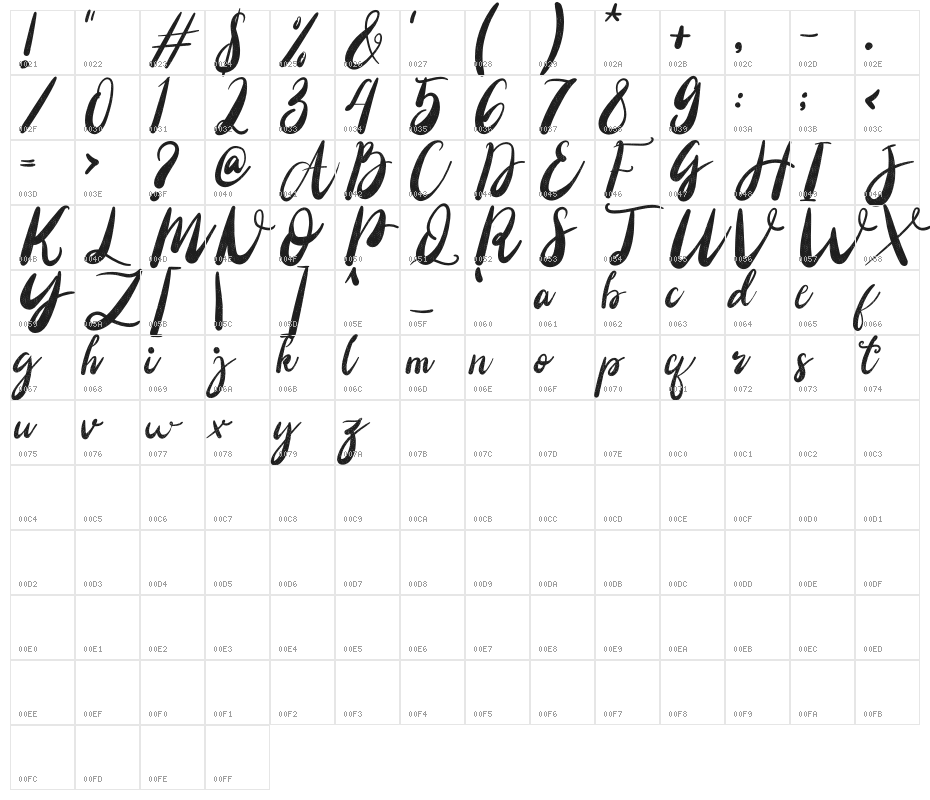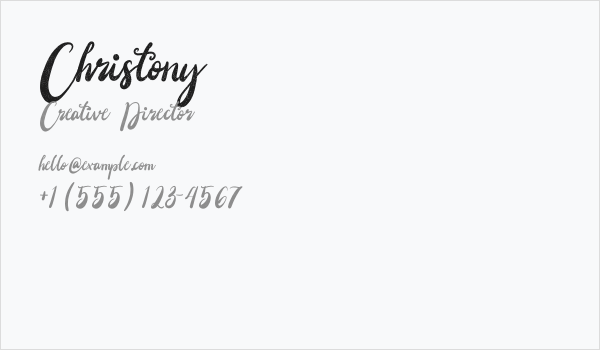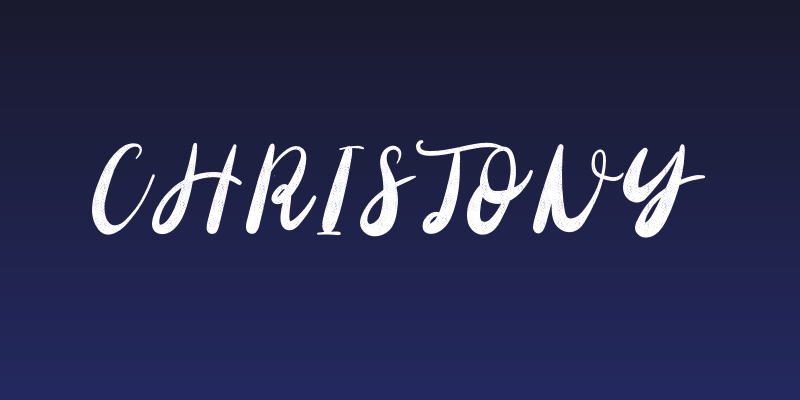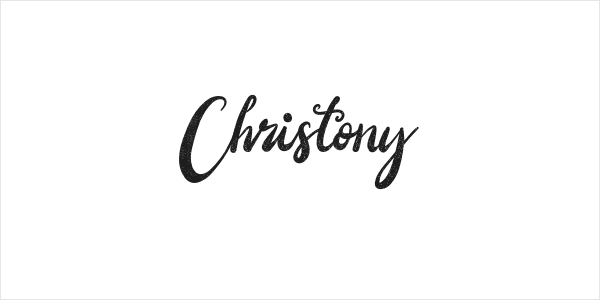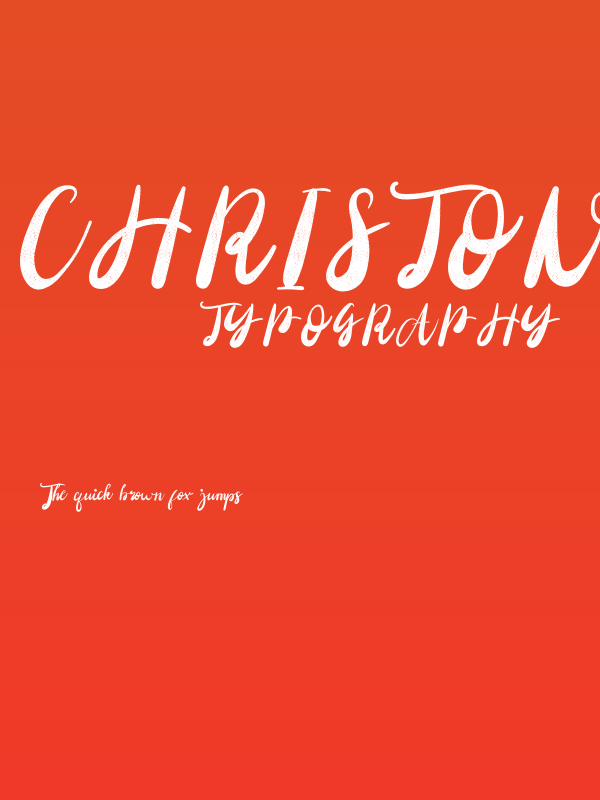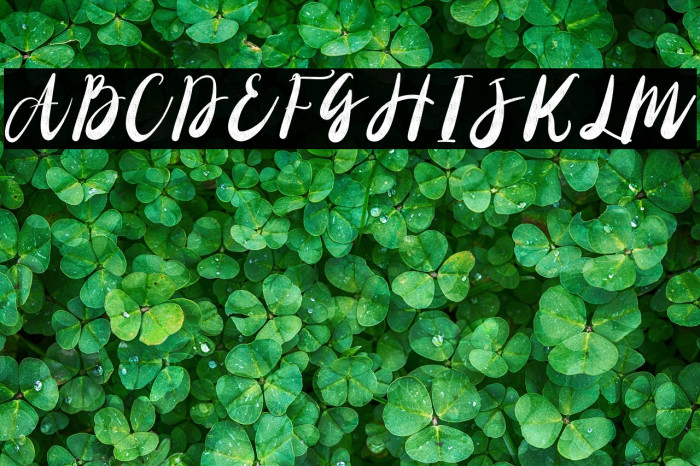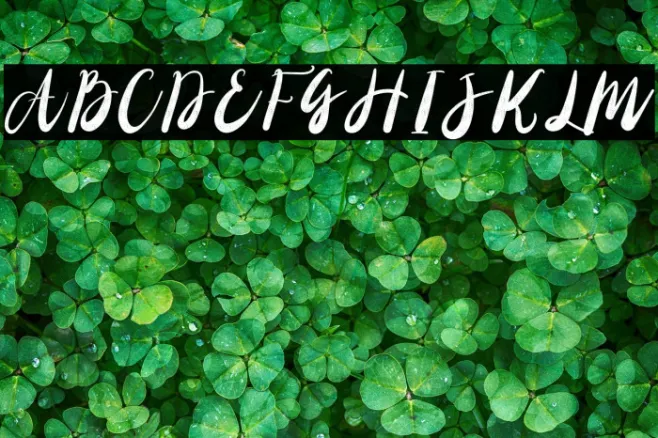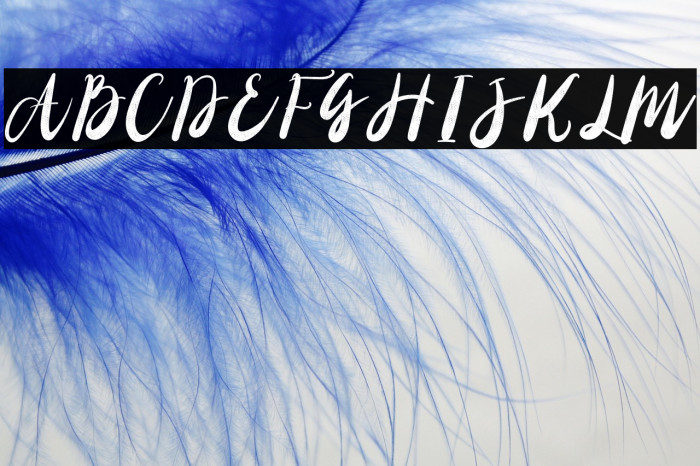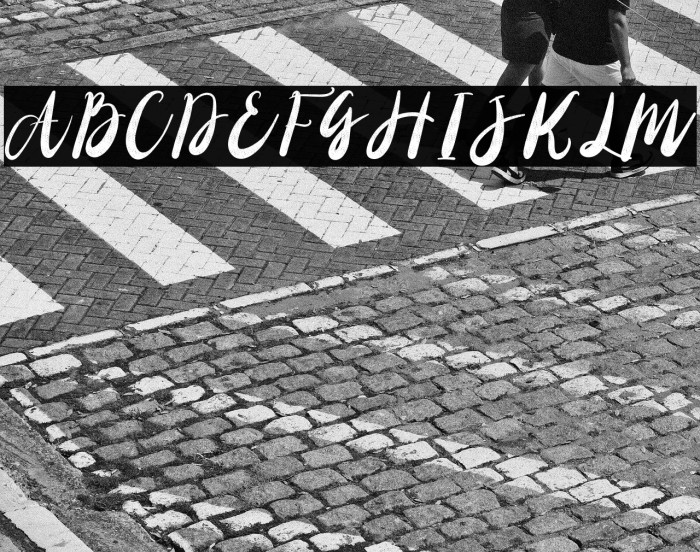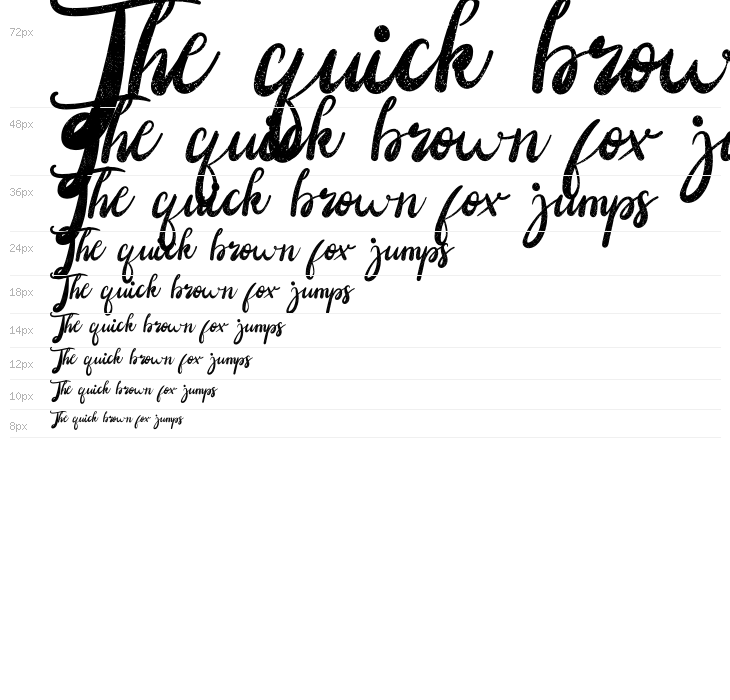
Christony Font
Christony Description
This font features a dynamic and expressive script style, characterized by its fluid and cursive letterforms. The strokes are bold and confident, with a slight slant that adds to its energetic appearance. The uppercase letters are elegantly designed with sweeping curves, while the lowercase letters maintain a consistent flow, enhancing readability. Numbers and special characters are crafted with the same attention to detail, ensuring a cohesive look throughout. The overall texture is slightly rough, giving it a hand-drawn feel that adds a personal touch to any design.
| Proposed Projects | Ideal for branding, invitations, greeting cards, and social media graphics. |